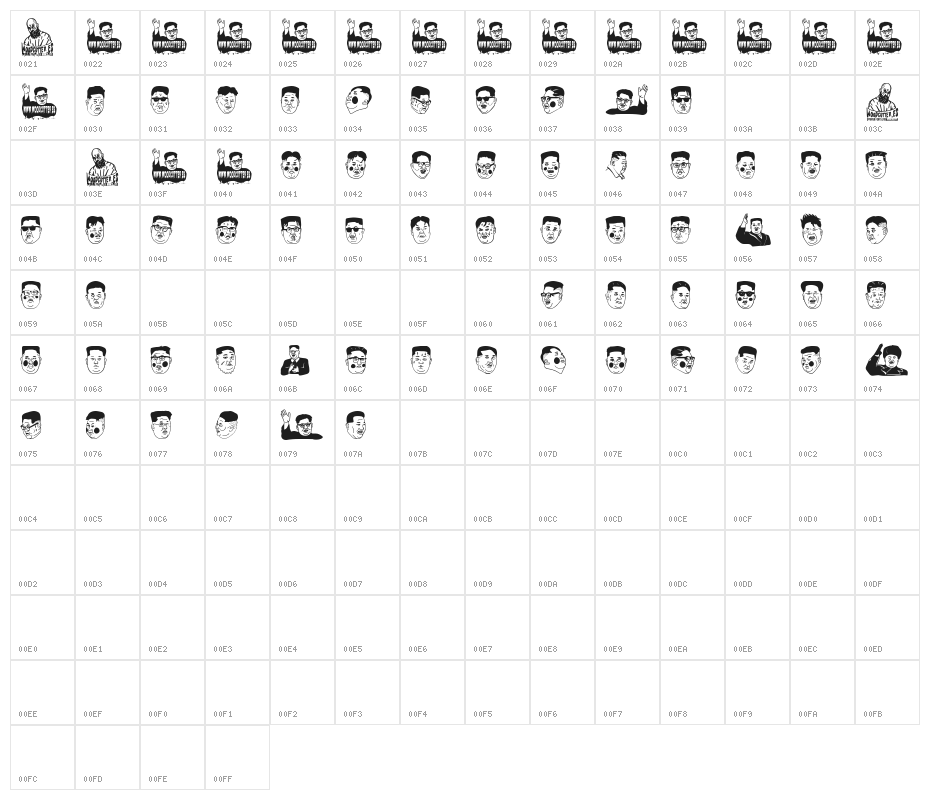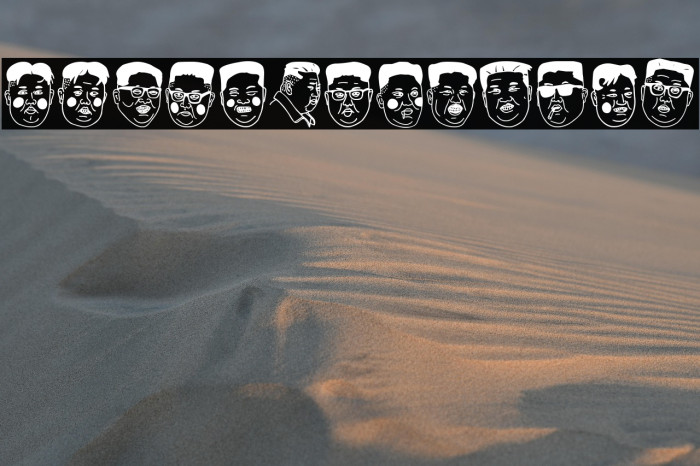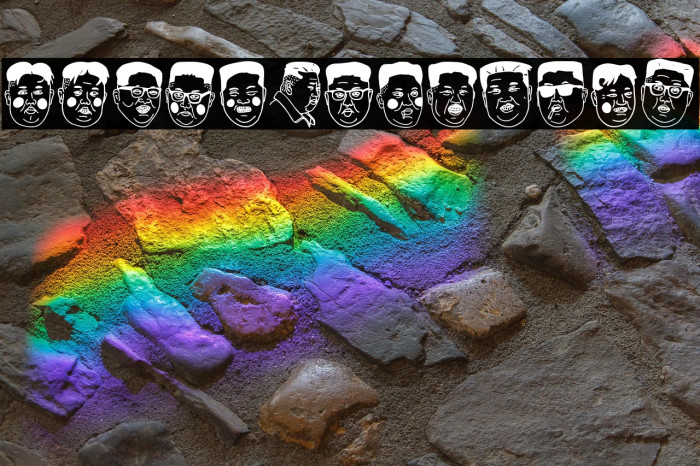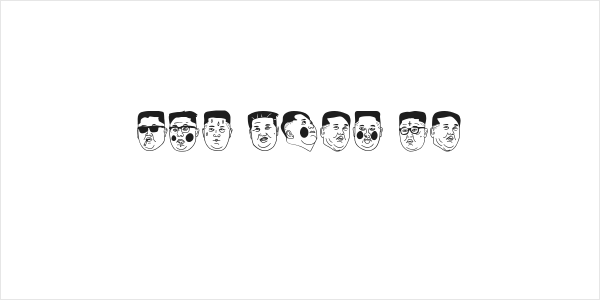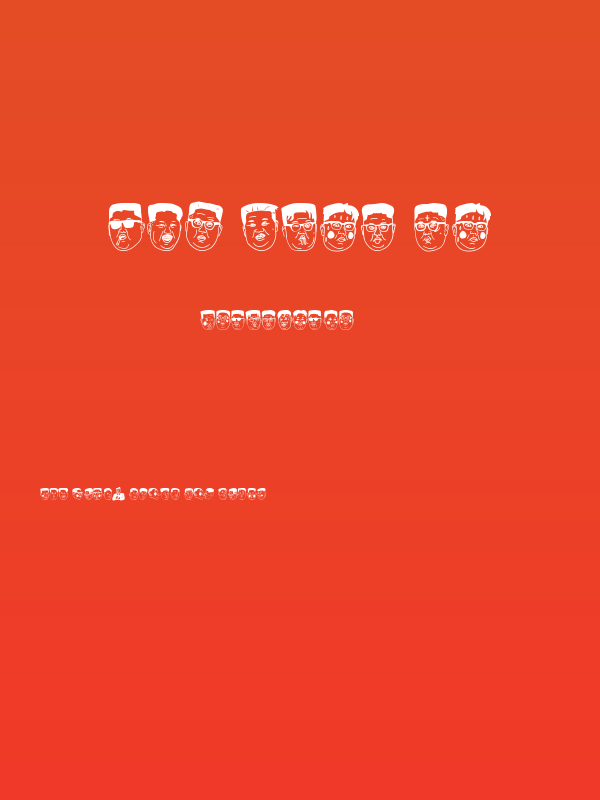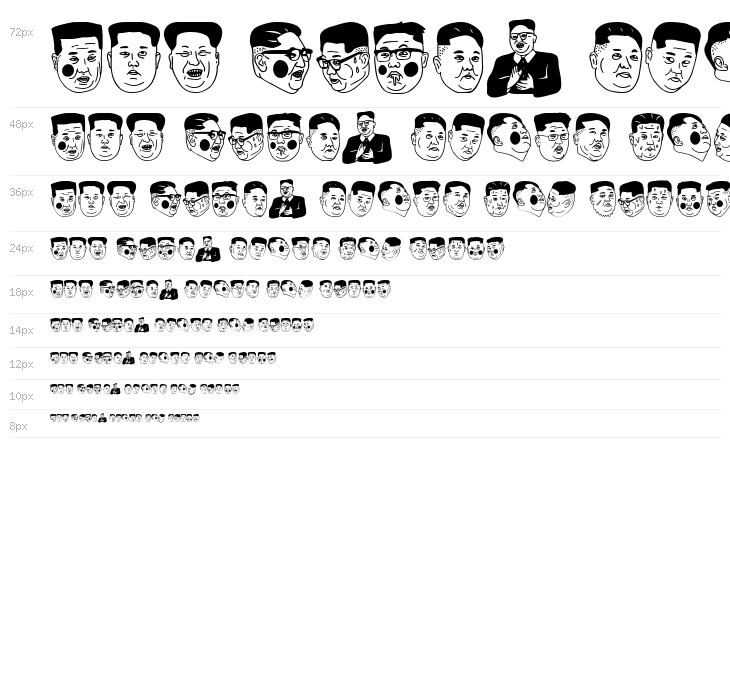
Kim Jong Un Font
Kim Jong Un Description
A decorative display font composed of hand-drawn caricature faces with a consistent outline style, each glyph representing a unique facial expression or pose, with bold lines and playful, exaggerated features.
| Overall Style | Decorative, Playful, Satirical |
| Use Case | Headlines, Posters, Editorials, Comics |
| Proposed Projects | Posters, satirical artwork, editorial illustrations, novelty merchandise, comic strips. |